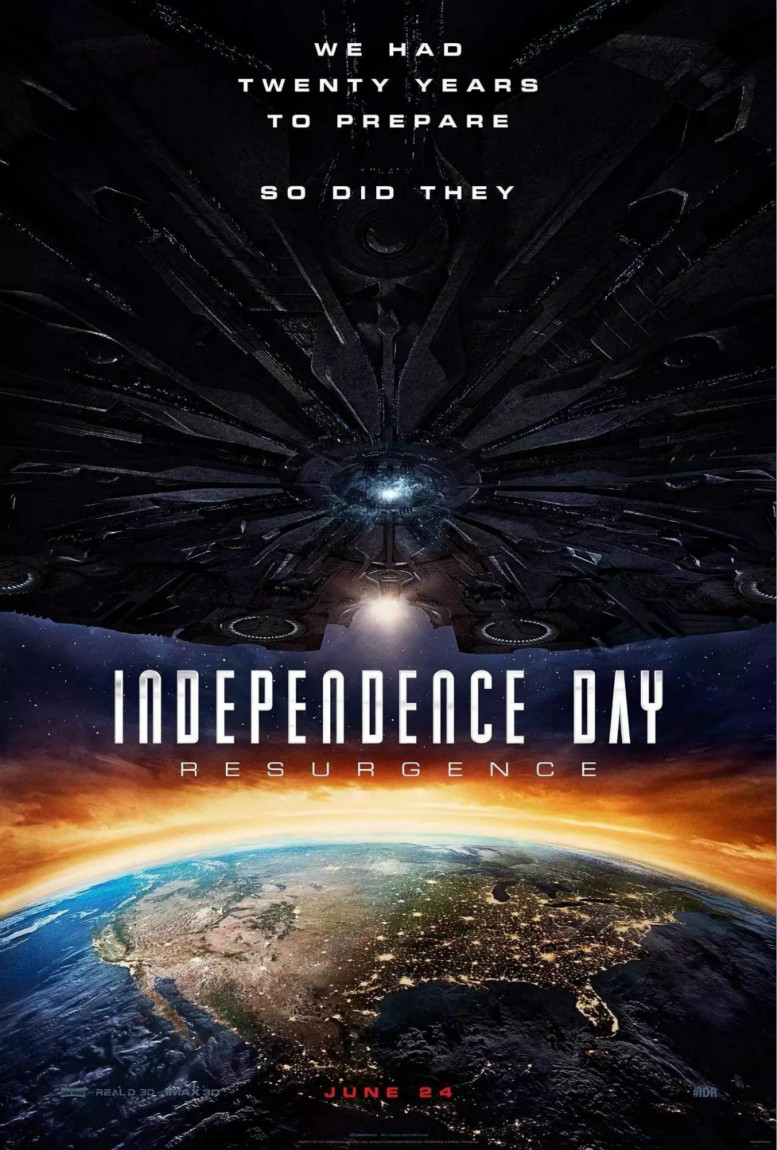
Independence Day Resurgence Font
Fonts in UseIndependence Day: Resurgence is a 2016 science fiction film and a sequel to the 1996 film Independence Day, which follows the return of the alien invaders and humanity's efforts to defend against them.
The title of the film is written in a font that closely resembles Industria Solid. Neville Brody, a British designer, created this ultra-condensed sans-serif display typeface for the magazine "The Face" in 1984, and it is now available in both solid and inline versions.